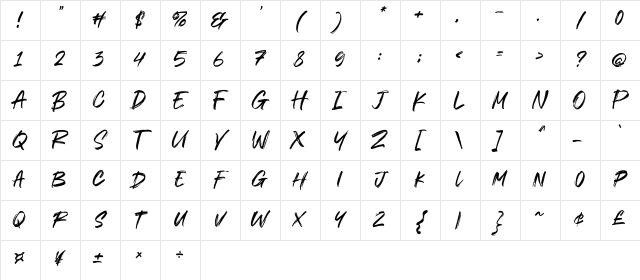
Kabur Regular
Foundry: Khurasan
Designer: Khurasan
Design Context for Kabur
Kabur is a composed and adaptable typeface that performs quietly and consistently across a wide range of design contexts.